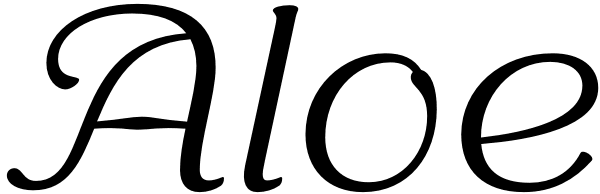
Aloe
Aloe is a display font family inspired by headlines from 1930’s newspapers and hand writing. The family consists of 9 weights, ranging from Thin to Heavy, with matching ornament fonts. Each weight has over 900 glyphs including advanced typographic...